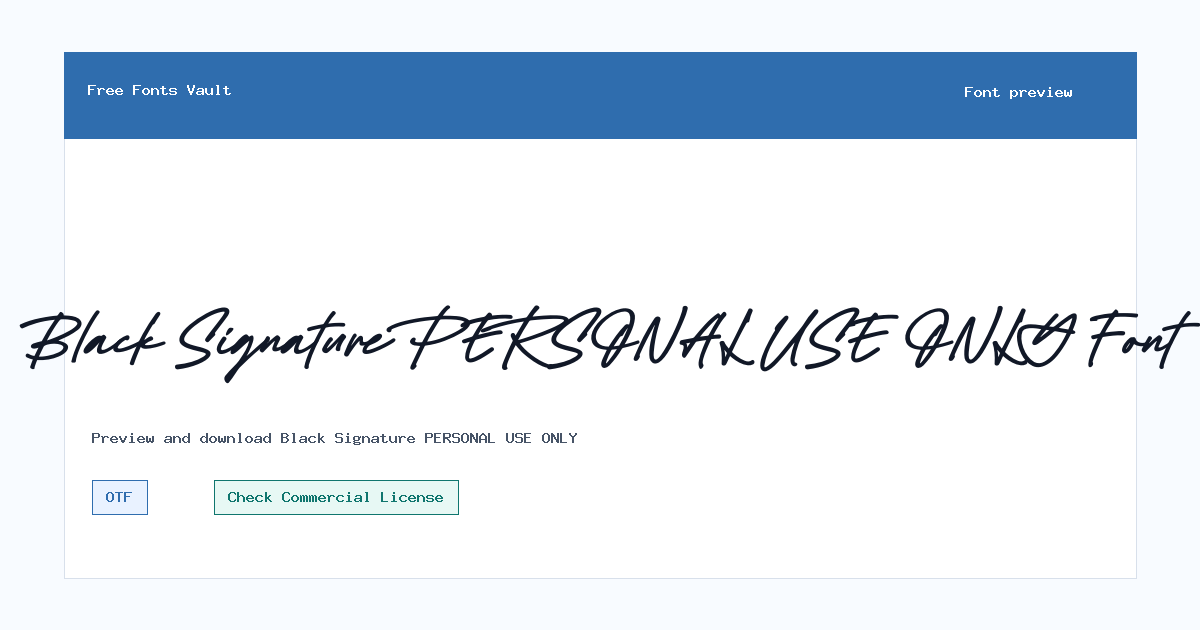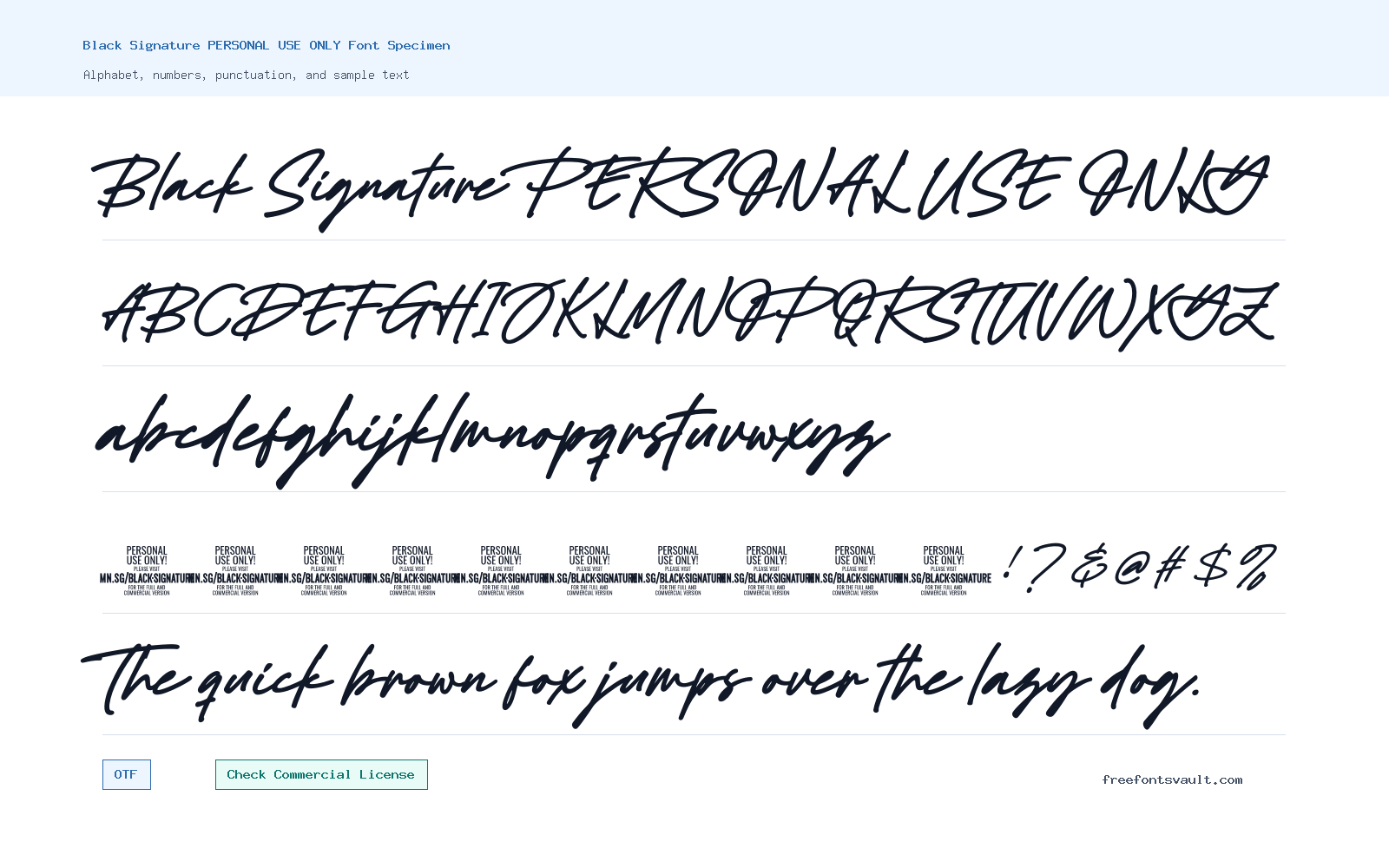
Black Signature PERSONAL USE ONLY
Black Signature is a personal-use font with a handwritten signature feel, useful when you want text to look more like a name, mark, or short decorative line than a standard typeface.
About Black Signature
Black Signature PERSONAL USE ONLY comes as an OTF font file in a regular style with a heavy listed weight. The name and style point toward a signature-inspired script look, so it is best tested with names, short phrases, initials, and display words rather than long paragraphs.
Use the preview tool to check spacing, capital letters, and how your exact wording flows. Signature fonts can look stylish in a few words but may lose clarity when used too small or in full sentences. Try it for logo drafts, watermarks, invitations, social graphics, labels, and personal design projects where a handwritten accent fits.
Black Signature PERSONAL USE ONLY is the kind of font to test with real names and short signature phrases. Decorative signature fonts can vary a lot from word to word, so the preview is more useful than judging from the title alone.
• Signature-style display use, especially for names and short phrases
• Regular variant with a heavy listed font weight
• Best suited to decorative text rather than body copy
• Personal logo mockups and name marks
• Watermarks for photos or portfolio images
• Invitation headings and greeting card accents
• Social media graphics with short handwritten text
• Packaging or label concepts for personal projects
The designer credit is Rangga Singgih Subekti & Mans Greback, with Subectype & Mans Greback AB listed as the foundry.
What kind of projects is this font good for?
It is best for short decorative text such as names, signatures, watermarks, invitations, logo drafts, and social media graphics.
Who designed Black Signature?
The designer credit is Rangga Singgih Subekti & Mans Greback.
What text should I test first?
Test the exact name, brand draft, or short phrase you want to use, because signature fonts can change feel across different letter combinations.